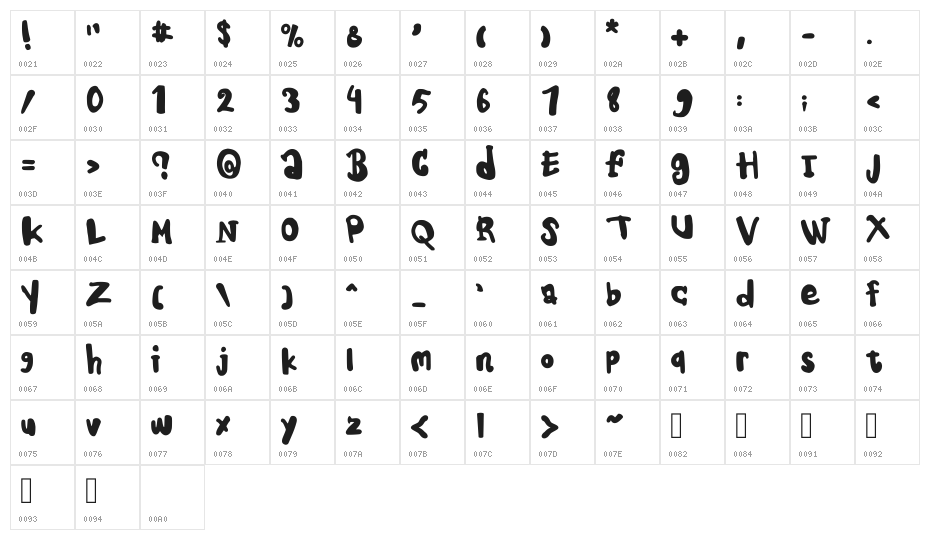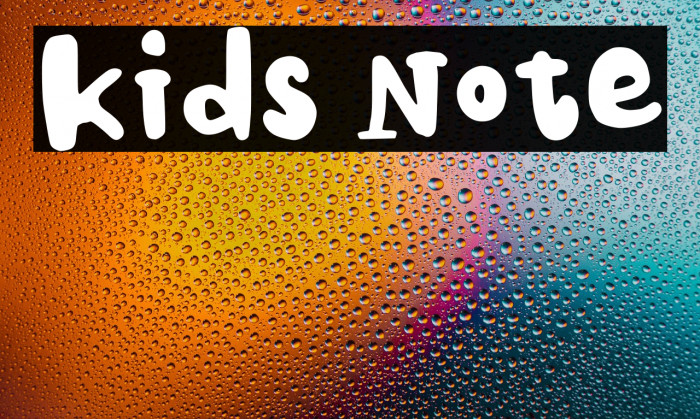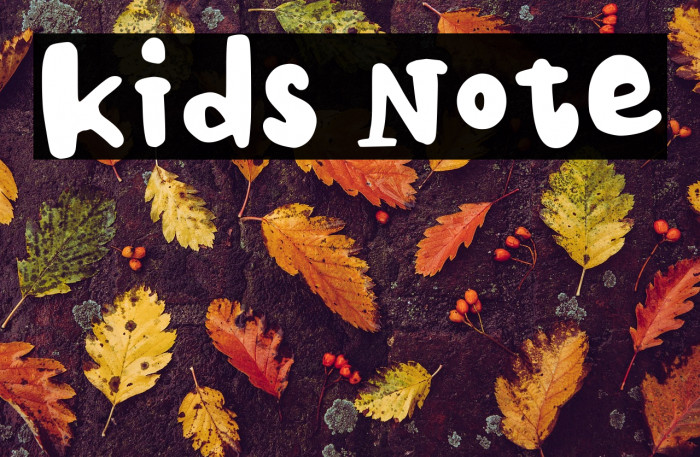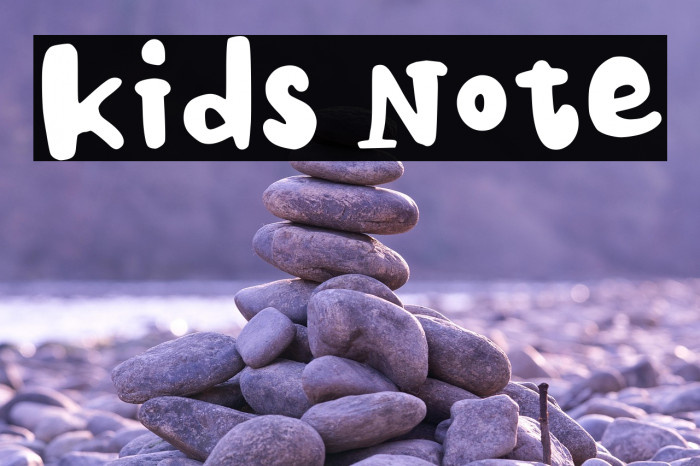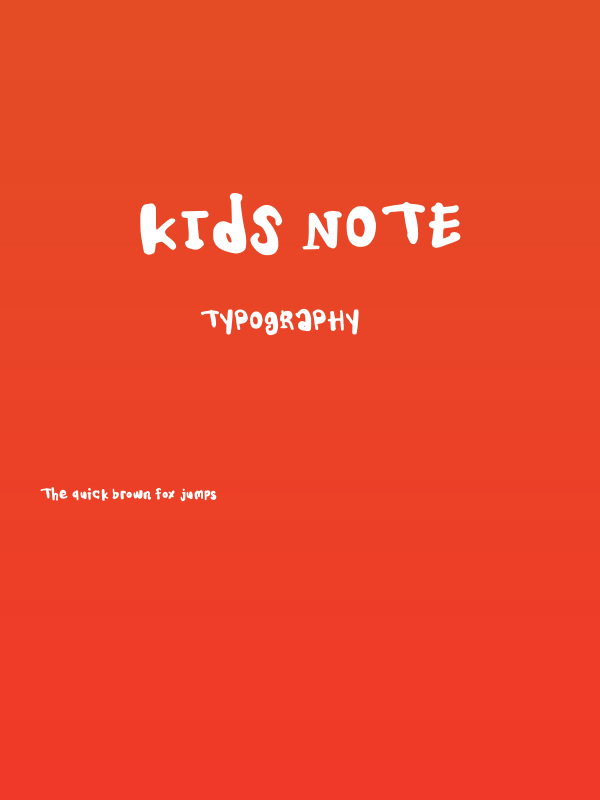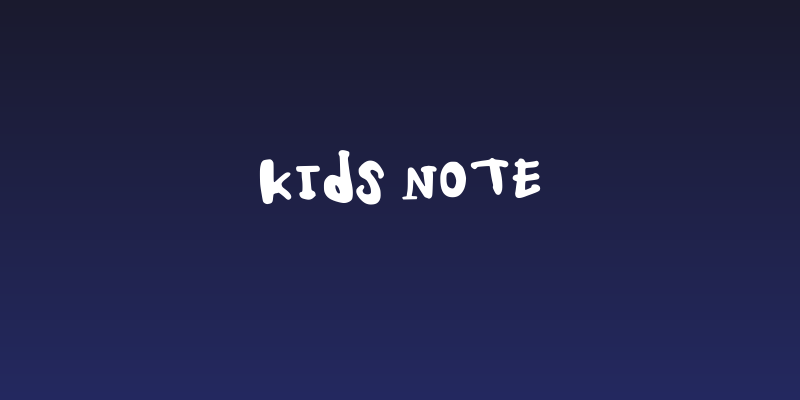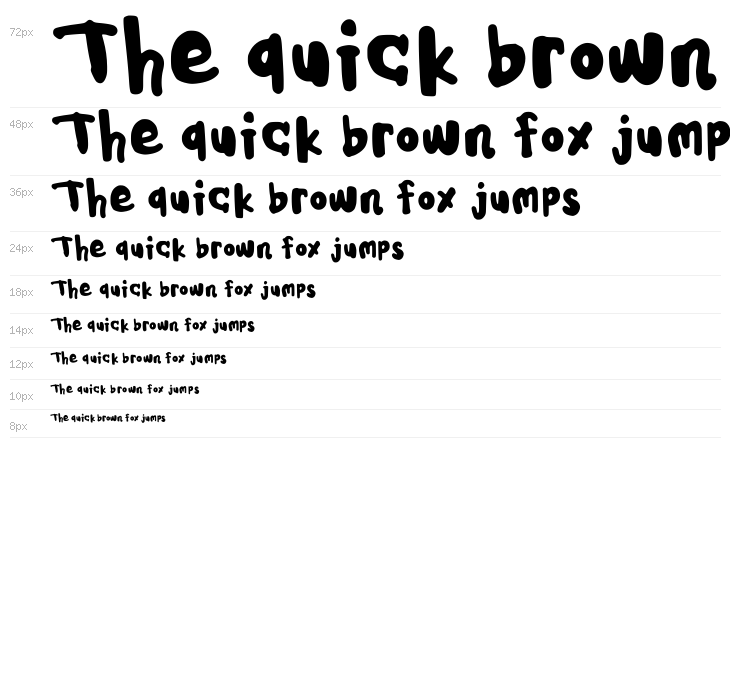
Kids Note Font
Kids Note Description
This playful and whimsical font features bold, rounded characters with a hand-drawn appearance. The letters have an uneven baseline and varying stroke thickness, giving them a lively and dynamic feel. Each character is distinct, with quirky shapes that add a sense of fun and creativity. The font includes both uppercase and lowercase letters, numbers, and a variety of special characters, making it versatile for different uses. Its informal style is reminiscent of children's handwriting, making it ideal for projects aimed at younger audiences or those seeking a casual, friendly tone.
| Proposed Projects | Ideal for children's books, educational materials, playful branding, and creative posters. |